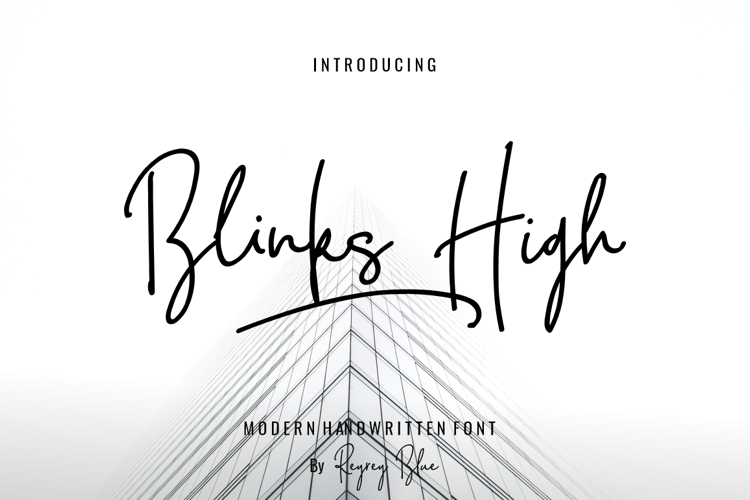
Blinks High Font
About Blinks High Font
Blink High Signature Script is a beautiful handwriting font based on authentic hand writing with natural signature style.
Blink High Signature Script is perfect for branding projects, logo, wedding designs, social media posts, advertisements, product packaging, product designs, label, photography, watermark, invitation, stationery and any projects that need handwriting taste.